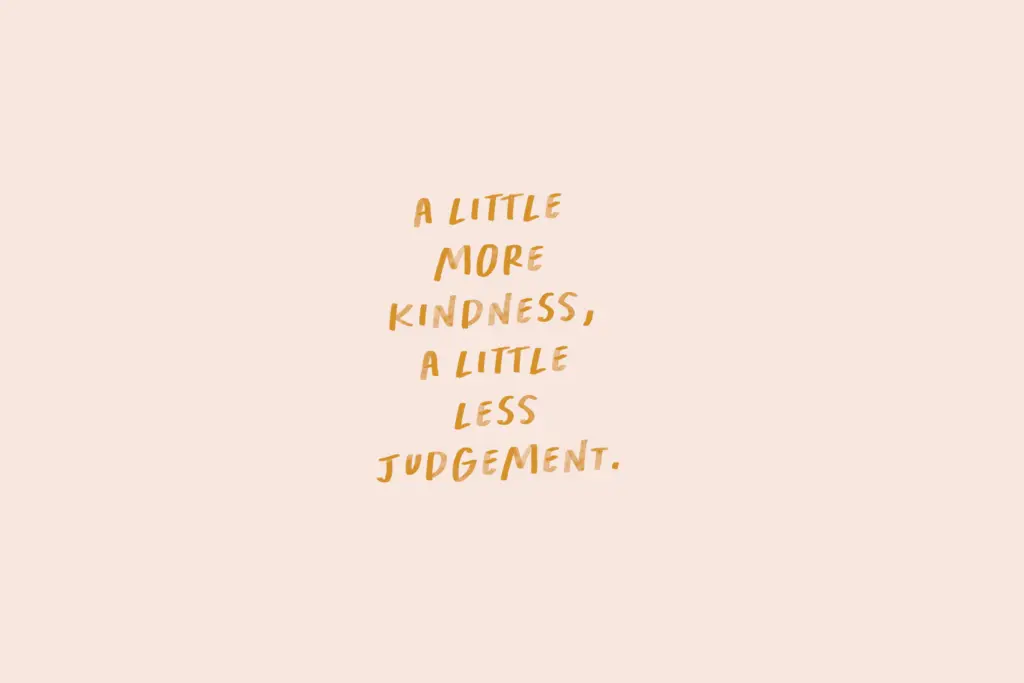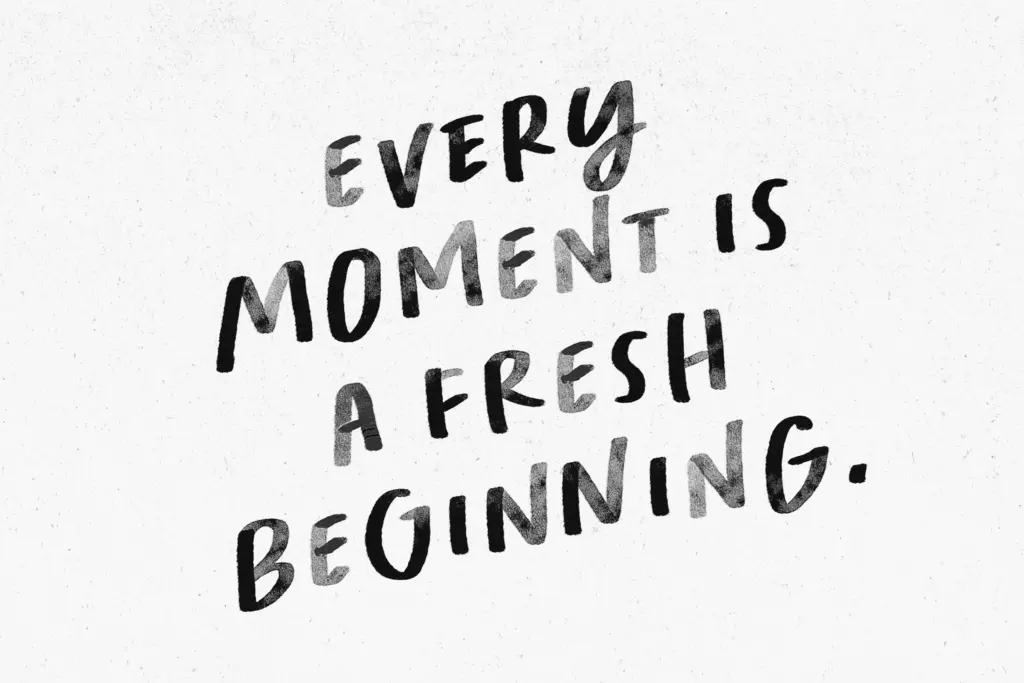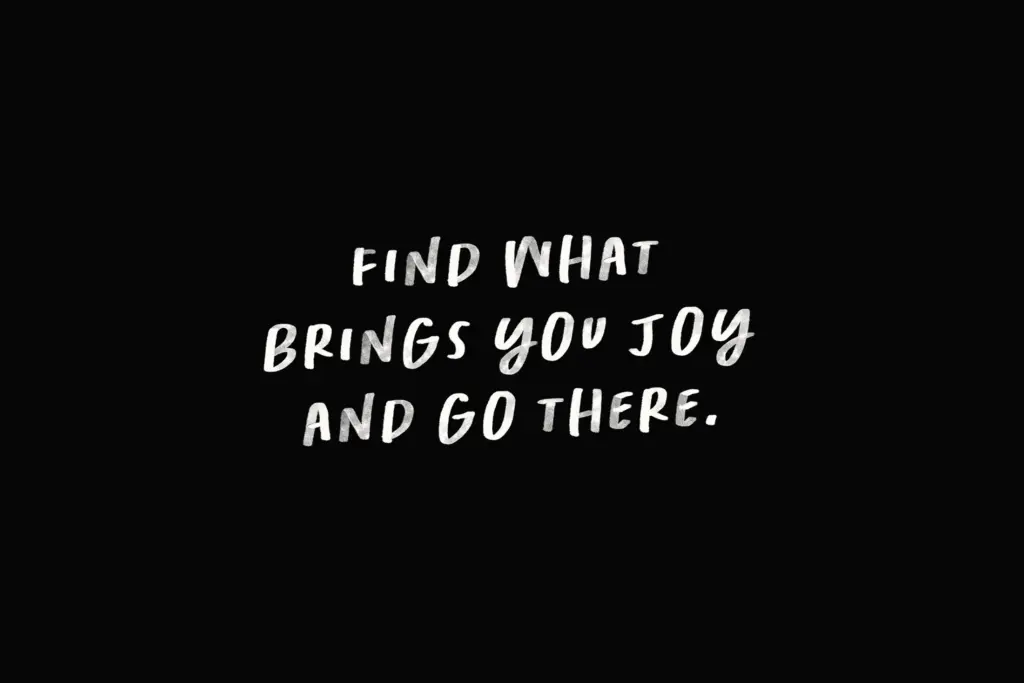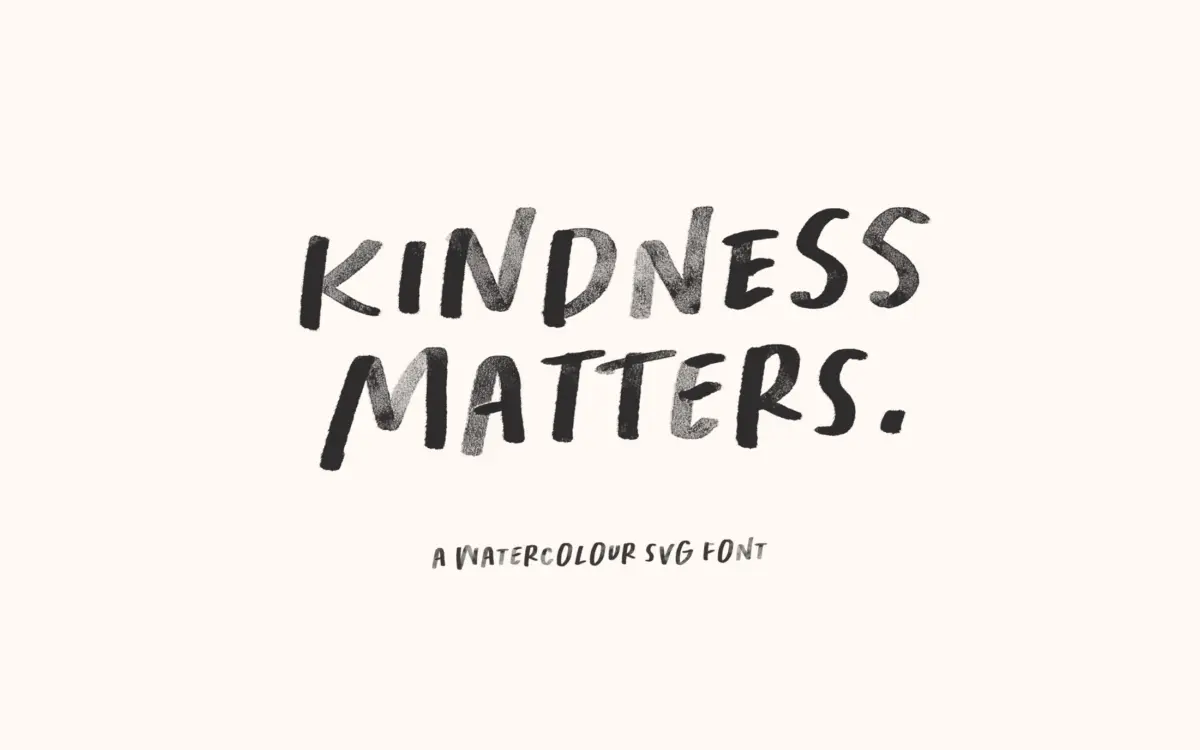
Kindness Matters is an all-caps SVG font built around a loose, brushy watercolour texture. Each letterform carries visible pigment variation, bleed and paper grain baked right into the glyph, so the texture isn’t a filter applied later — it’s part of the character itself. The strokes are uneven and a little wobbly, which reads as handmade rather than templated. Letters lean and bounce slightly off baseline, giving it a genuinely quirky, hand-lettered feel rather than the stiffer look you get from vector brush scripts trying to fake texture with gradients.
Because it’s SVG, the watercolour rendering only shows up properly in apps that support colour/SVG fonts — Photoshop CC 2017 and later, or Illustrator CC 2018 and later. A plain regular version is bundled for everything else, which is a sensible fallback but a much flatter experience: without the texture, the letterforms are simple, blocky caps that don’t carry much personality on their own. The design’s whole appeal lives in that painted surface.
The set is all-caps and covers English characters only, so there’s no lowercase alternate to soften long stretches of text, and no accented characters for other languages. Four bracket-triggered underline swashes are included, accessed either through the Glyphs panel or by typing the bracket pairs with ligatures switched on — a nice touch that lets you underline a word or phrase without having to draw it manually, and it keeps the texture consistent with the letters above it.
Two bonus Photoshop duotone watercolour styles are also included, meant to add a one-click overlay pass over the SVG glyphs. It’s a workflow shortcut more than a typographic feature, and it only matters if you’re already working in Photoshop rather than Illustrator or a browser-based tool. Because there’s no weight or width variation, what you see is what you get: one brushy caps style, one flat backup, and the underline extras.
This font is built for short bursts of type — a quote across a poster, a line on a greeting card, a social media graphic, a book cover title. All-caps texture fonts like this tend to fight readability once you push them into paragraphs, and with no lowercase to break up the shapes, longer sentences start to look like a wall of similar-height blocks. Keep it to a handful of words and it holds up fine; ask it to set a paragraph and it won’t.
It suits kids’ branding, handmade or craft-adjacent product packaging, Valentine’s or birthday cards, and anywhere a soft, painterly, informal mood is wanted over something polished or corporate. It’s not a font for body copy, dense editorial layouts, or anywhere a serious or minimal tone is needed. If your working software doesn’t support SVG fonts, budget for the flatter fallback experience — the plain regular loses most of what makes this typeface distinctive.
- The built-in watercolour texture looks convincingly hand-painted, not filtered on afterward.
- Bracket-triggered underline swashes add a genuinely useful, on-brand finishing touch.
- The bundled duotone Photoshop styles offer a quick way to push the texture further without manual work.
- All-caps only with no lowercase makes it unsuitable for anything beyond short phrases.
- Full character texture only renders in newer Photoshop or Illustrator versions; elsewhere you're left with a much flatter regular fallback.
Kindness Matters delivers exactly what it promises: a genuinely textured, hand-painted all-caps display font for short, warm messages. It's not built for anything beyond a few words at a time, and its best qualities only show up in software that supports SVG fonts. Buy it for quotes and cards, not for body text.